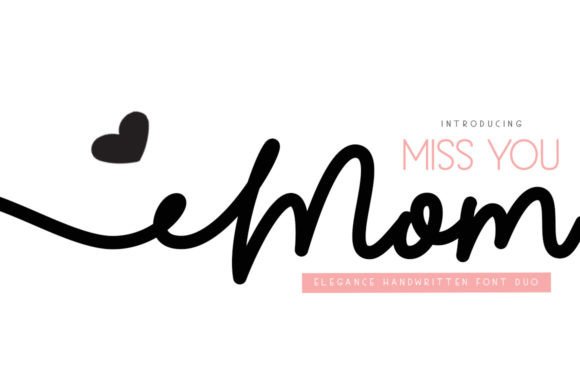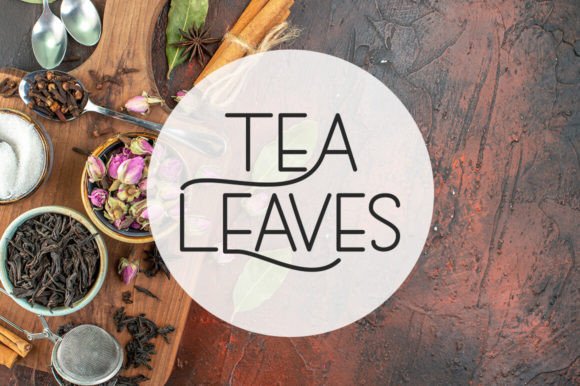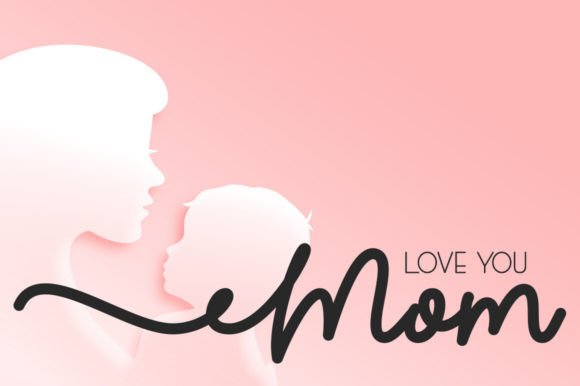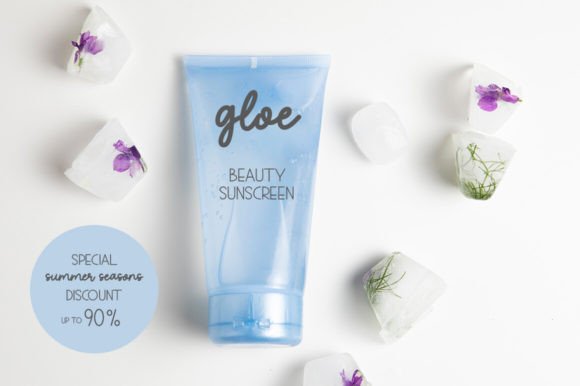
Miss You Mom Font
About the Miss You Mom Font
Welcome to the world of Miss You Mom Font, a typeface that will inspire your next great project. Miss You Mom consists of two handwritten fonts designed to complement each other perfectly. Together or apart, these fonts are ideal for adding a chic and cheery touch to your crafts.
This font pair excels in projects requiring a friendly, slightly nostalgic feel. Ideal applications include wedding stationery, greeting cards, social media graphics, and branding for small businesses emphasizing handmade or artisanal products. It works well for short headlines, quotes, and logos, but its handwritten nature makes it less suitable for extended body text or UI elements where readability is paramount.
For a balanced aesthetic, pair Miss You Mom with a clean sans-serif like Montserrat for a modern contrast, or a classic serif such as Playfair Display for a more traditional feel. A simple geometric sans-serif could also provide a striking counterpoint to its organic forms. Avoid pairing it with other highly decorative or script fonts, as this could lead to visual clutter.
The overall personality is cheerful and approachable, conveying warmth and a sense of handcrafted authenticity. The fonts’ playful swashes add a touch of whimsy without sacrificing legibility in short applications.
Miss You Mom Font Usage Examples
Miss You Mom Font Example